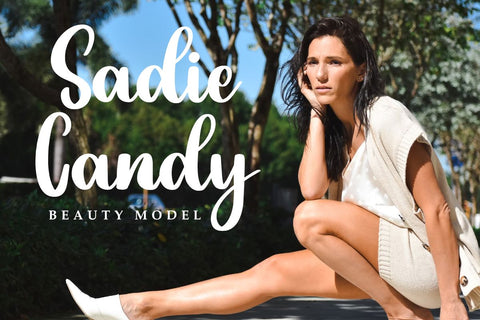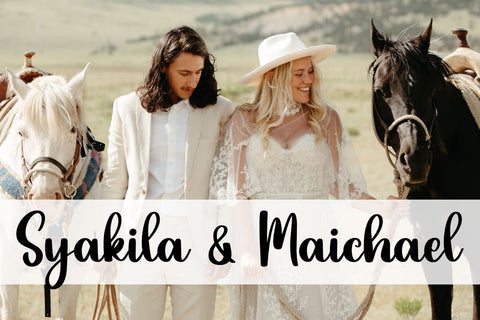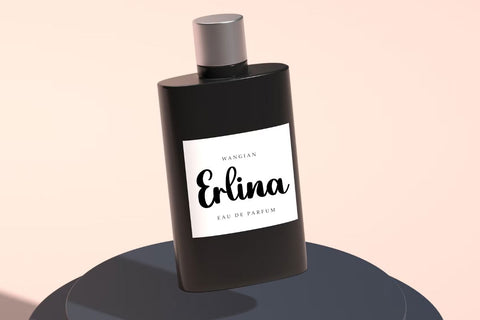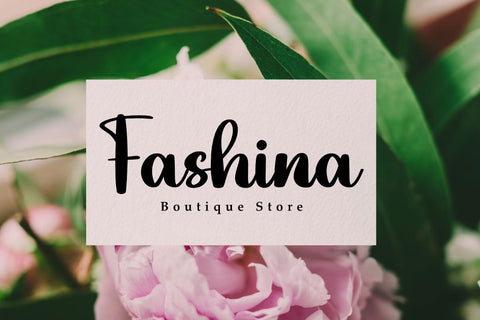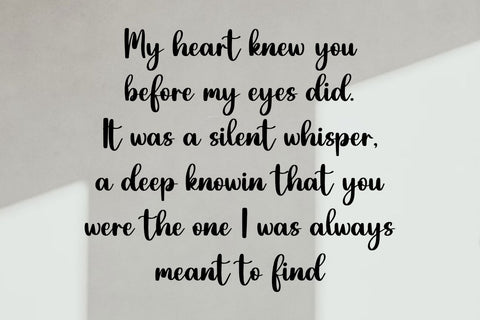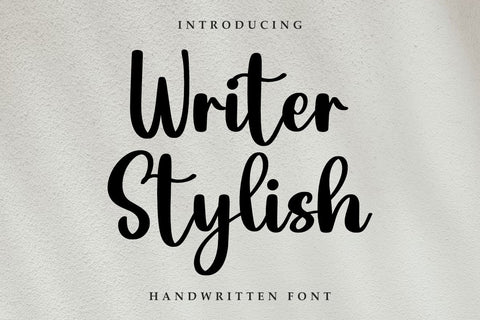
Writer Stylish - Beauty Handwritten Font
Writer Stylish is a sweet handwritten font. This soft font will look stunning in a variety of design ideas. It will add a playful and romantic touch to any of your projects! Perfect for branding, logos, weddings, greeting cards, fashion, lookbooks, marketing promotions, quotes, labels, stickers, and whenever you want your designs to look luxurious and elegant yet casual.